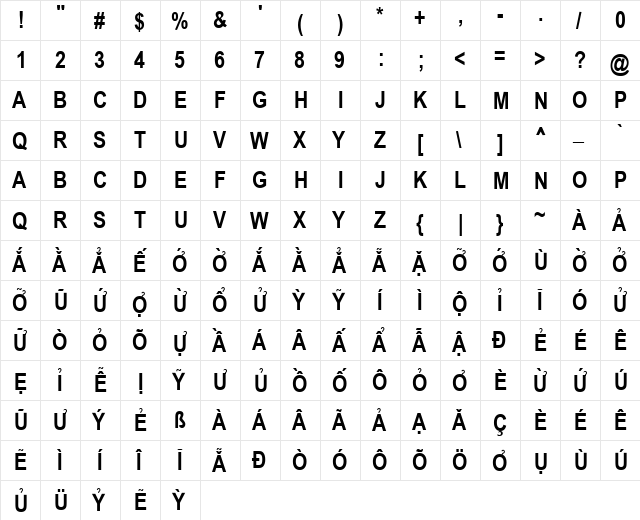
VPS Pleiku Hoa Bold
Design Context for VPS Pleiku Hoa Typeface
VPS Pleiku Hoa offers clean, dependable letterforms without strong stylistic allegiance, making it a practical choice for designers who need flexibility. The heavy weight commands attention and anchors typographic hierarchies.